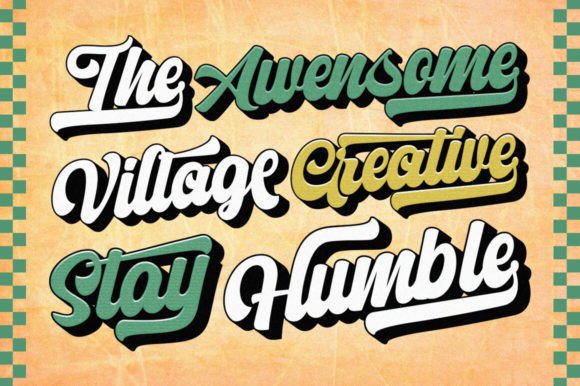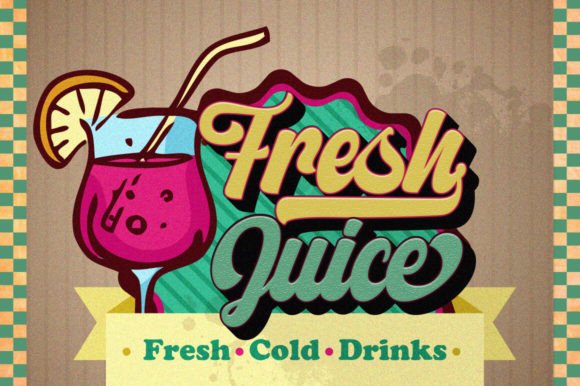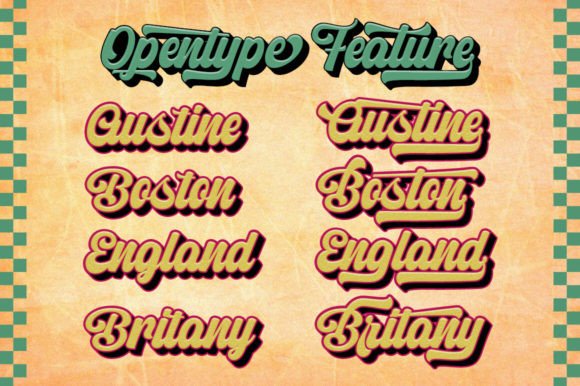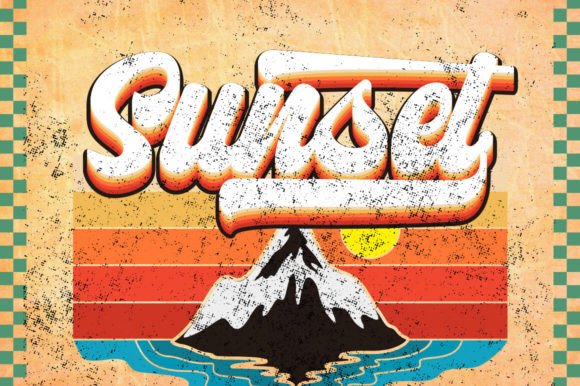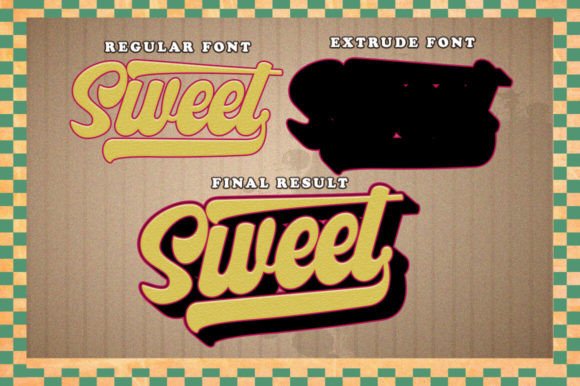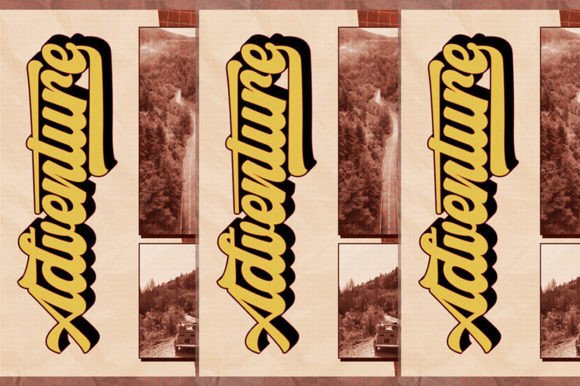
Introduction to Letter Vintage Font
Have you ever stumbled upon an old photograph from your childhood, only to be transported back to a simpler time? The nostalgic feeling that washes over you as you gaze at the faded image, the memories it brings to life – it’s a moment that sparks creativity and fuels your imagination. As designers, we’re always on the lookout for the perfect font to capture that essence of nostalgia, and that’s where the Letter Vintage Font comes in.
This high-quality font is a masterclass in retro typography, blending the best of the 70s and 80s with a bold, modern twist. With its free download option, designers can experiment with the font in their creative projects without any financial constraints. Whether you’re working on a logo, packaging design, or book cover, the Letter Vintage Font is the perfect design resource to give your project a timeless, vintage feel.
From transparent backgrounds to bold, eye-catching lettering, this font offers endless possibilities for designers looking to add a touch of nostalgia to their work. With its versatility and high-quality design, it’s no wonder the Letter Vintage Font has become a staple in many designers’ arsenals.
Key Features of Letter Vintage Font
- High-quality, unique design ideal for creative projects and artistic expressions.
- Includes a wide range of characters, including uppercase and lowercase letters, numbers, and special symbols.
- Perfect for adding a touch of nostalgia and elegance to various design projects, from print materials to digital graphics.
Honest Review: Letter Vintage Font
I recently stumbled upon the Letter Vintage Font, and I’m excited to share my honest review with you. This font has been a game-changer for my creative projects, and I’m eager to dive into its features and limitations.
- High-quality design: The Letter Vintage Font boasts a unique, vintage aesthetic that’s perfect for adding a touch of elegance to your designs.
- Transparent background: The font’s transparent background makes it easy to layer over other design elements, giving you more creative control.
- Limited character set: Unfortunately, the Letter Vintage Font only includes a limited character set, which can make it challenging to use for longer texts.
- Not ideal for body text: While the font is perfect for headings and titles, it’s not the best choice for body text due to its vintage style.
Overall, I’m impressed with the Letter Vintage Font’s design quality and versatility. While it has some limitations, it’s an excellent resource for designers looking to add a touch of elegance to their creative projects.
Letter Vintage Font
The Letter Vintage Font is a unique and elegant design resource that can add a touch of sophistication to your creative project. With its high-quality, distressed texture, this font is perfect for adding a vintage feel to your designs.
To get the most out of the Letter Vintage Font, be sure to use it on a transparent background to really make the distressed texture pop. You can also experiment with different font sizes and colors to create a unique and eye-catching design.
The Letter Vintage Font is perfect for a variety of design projects, including wedding invitations, birthday cards, and other special occasion designs. It’s also great for creating a vintage-inspired logo or branding materials.